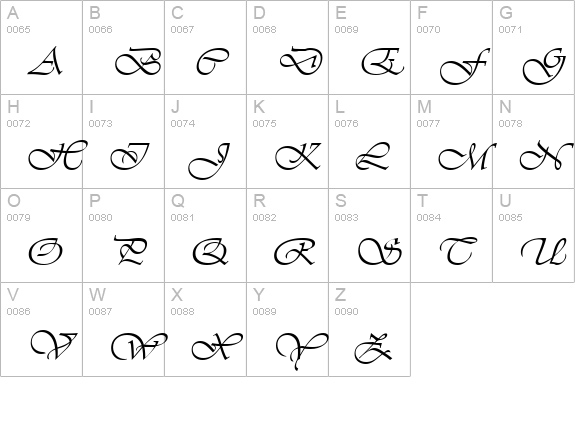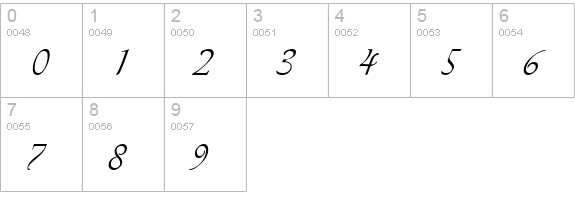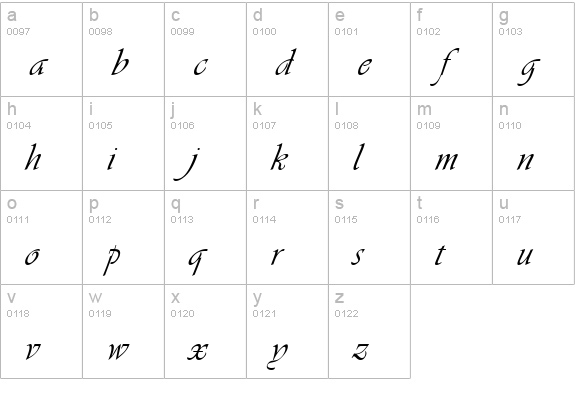
Vianta Font Details
Vianta font is a stunning display typeface that exudes elegance and sophistication. With its sleek and modern design, this font is perfect for a wide range of creative projects, from branding and logo design to advertising and packaging. Its clean lines and unique letterforms make it incredibly versatile, allowing it to be used in both bold headlines and subtle body text. What sets Vianta font apart is not only its exquisite design but also its accessibility. It is available for free download at FontsMarket.com, making it an essential resource for designers and creatives on a budget. Whether you're a professional graphic designer or an aspiring artist, this font offers a high-quality solution at no cost. Downloading Vianta font is a breeze, and once you have it in your collection, you'll never want to use any other font for your projects. Its carefully crafted letterforms and attention to detail make it a true standout in the world of typography. Whether you're creating eye-catching advertisements or designing elegant invitations, Vianta font is sure to elevate your work to new heights. So why wait? Take advantage of this incredible opportunity to download Vianta font for free at FontsMarket.com. With its timeless beauty and versatility, this font will undoubtedly become a staple in your design arsenal. Don't miss out on this amazing offer and start using Vianta font today to bring your creative visions to life.